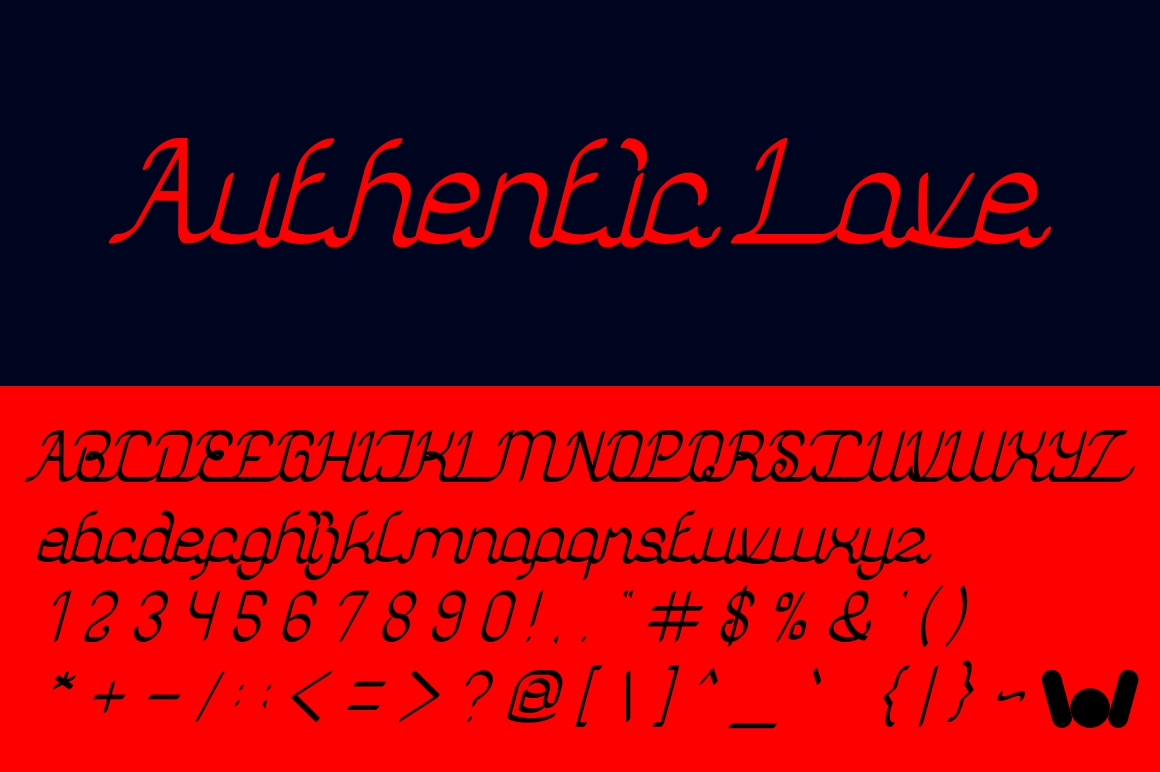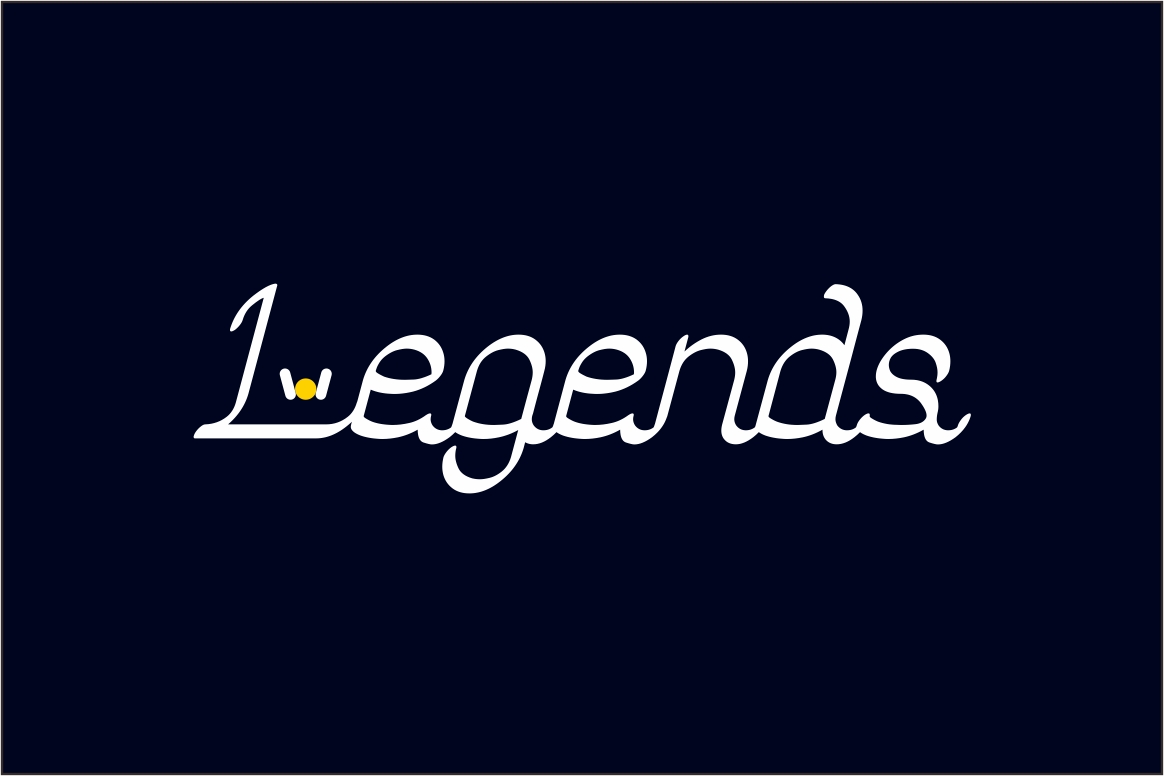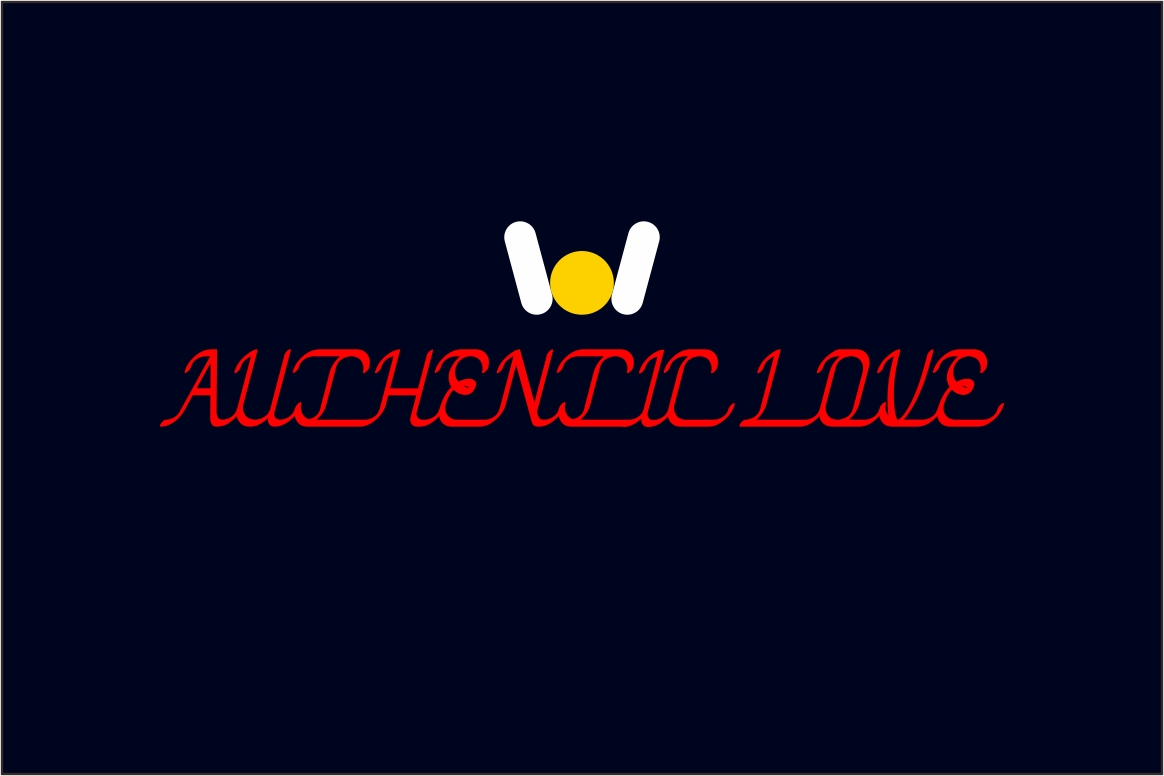
Authentic Love Font
About Authentic Love Font
Authentic Love is a charming handwritten font with variables that give it an authentic appeal; this font comes in three different styles to maximize your typesetting options in your creative designs.